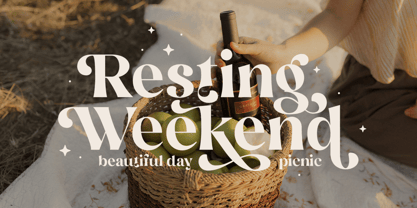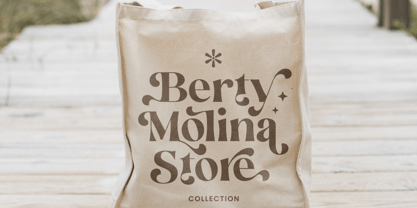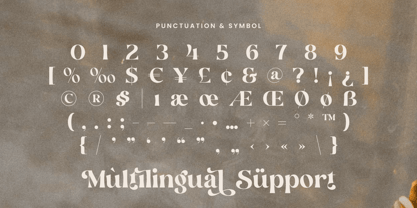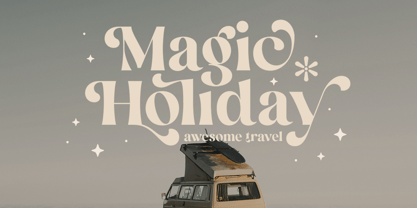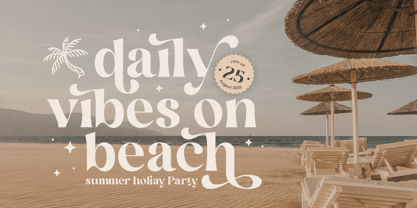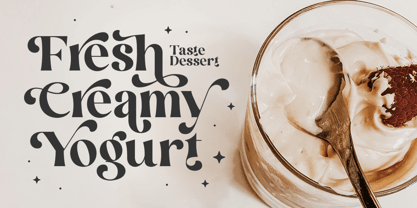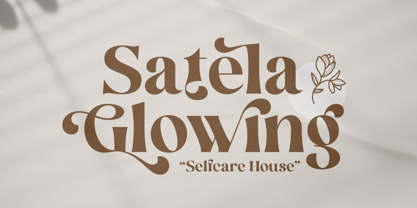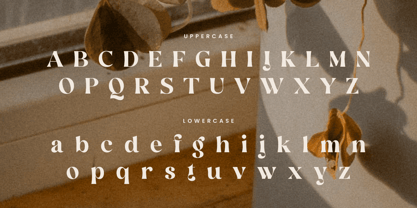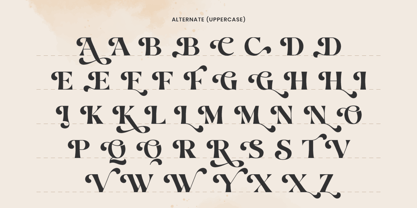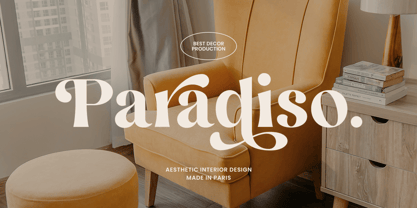
Blaine Retro
La familia tipográfica Blaine Retro fue diseñada por Zamroni Hamzah y publicada por Sensatype Studio. Blaine Retro contiene 2 estilos y opciones de paquete familiar. Más información sobre esta familia
Blaine Retro - Retro Font
Blaine is a retro-inspired font that brings the essence of vintage design into the modern era. With its cinematic flair and nostalgic character, Blaine is perfect for projects that require a touch of timeless elegance. Whether you're creating a logo, poster, or branding materials, this font's retro vibes will make your work stand out.
The story behind Blaine is rooted in the golden age of design, drawing inspiration from classic films and vintage typography. It's designed to evoke emotions of nostalgia while maintaining a modern twist. Blaine's versatility makes it suitable for a wide range of applications, from movie titles to packaging design.
With its unique alternative characters and multilingual support, Blaine offers endless creative possibilities. It's the perfect choice for designers looking to create captivating visuals that leave a lasting impression.
Blaine Retro Font Features:
• Unique Alternative Characters Ready
• Punctuation, Number, and Symbol
• Uppercase and Lowercase
• Multilingual Support
• Opentype Features